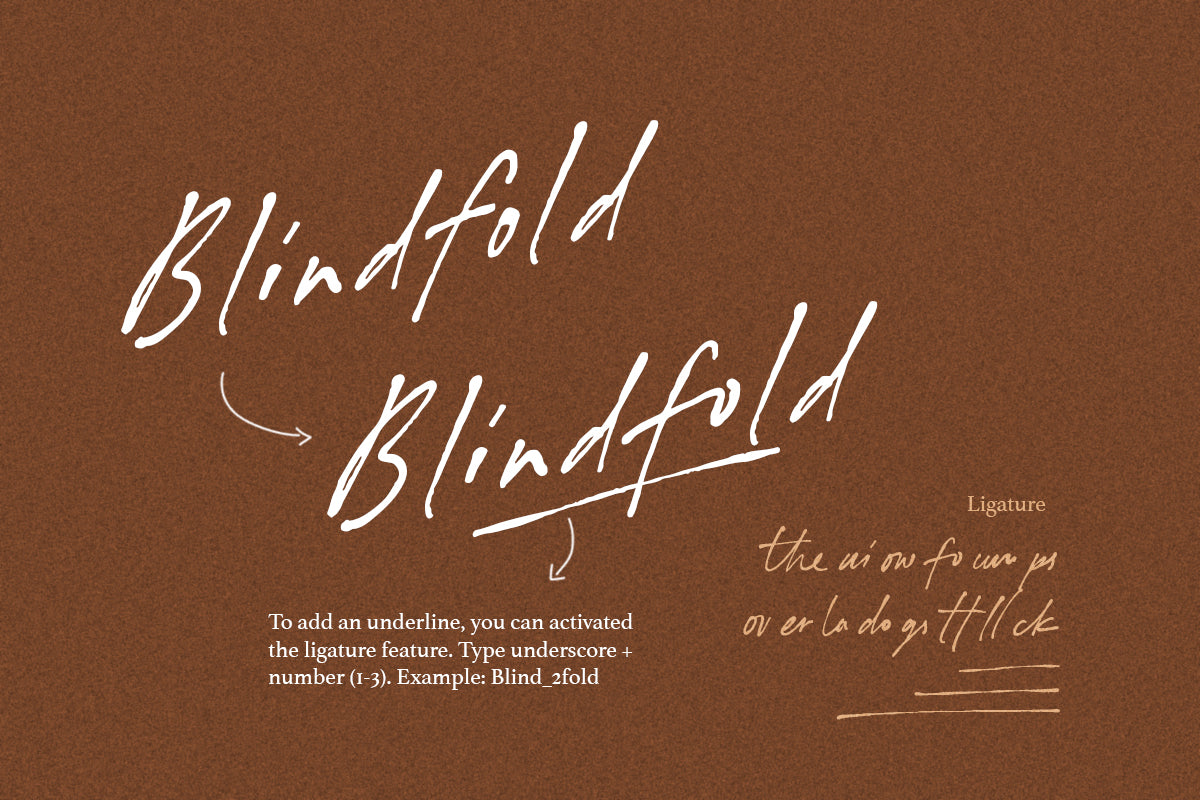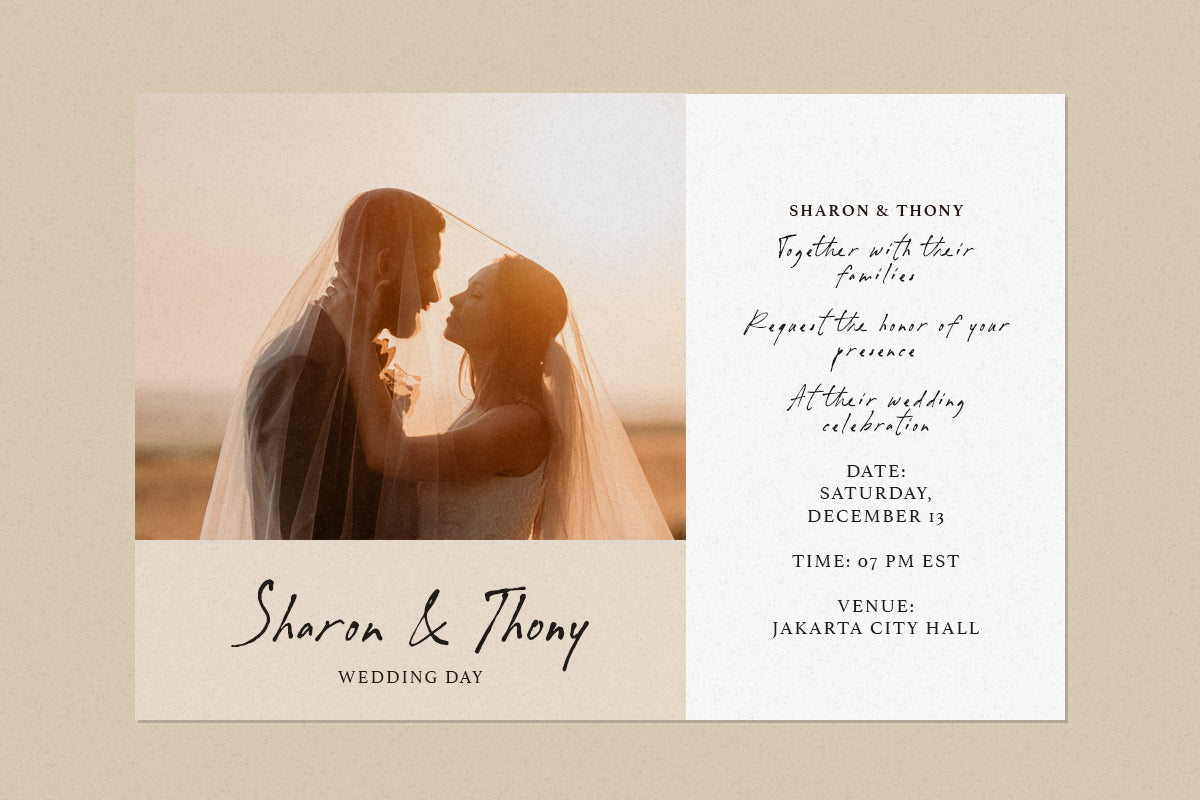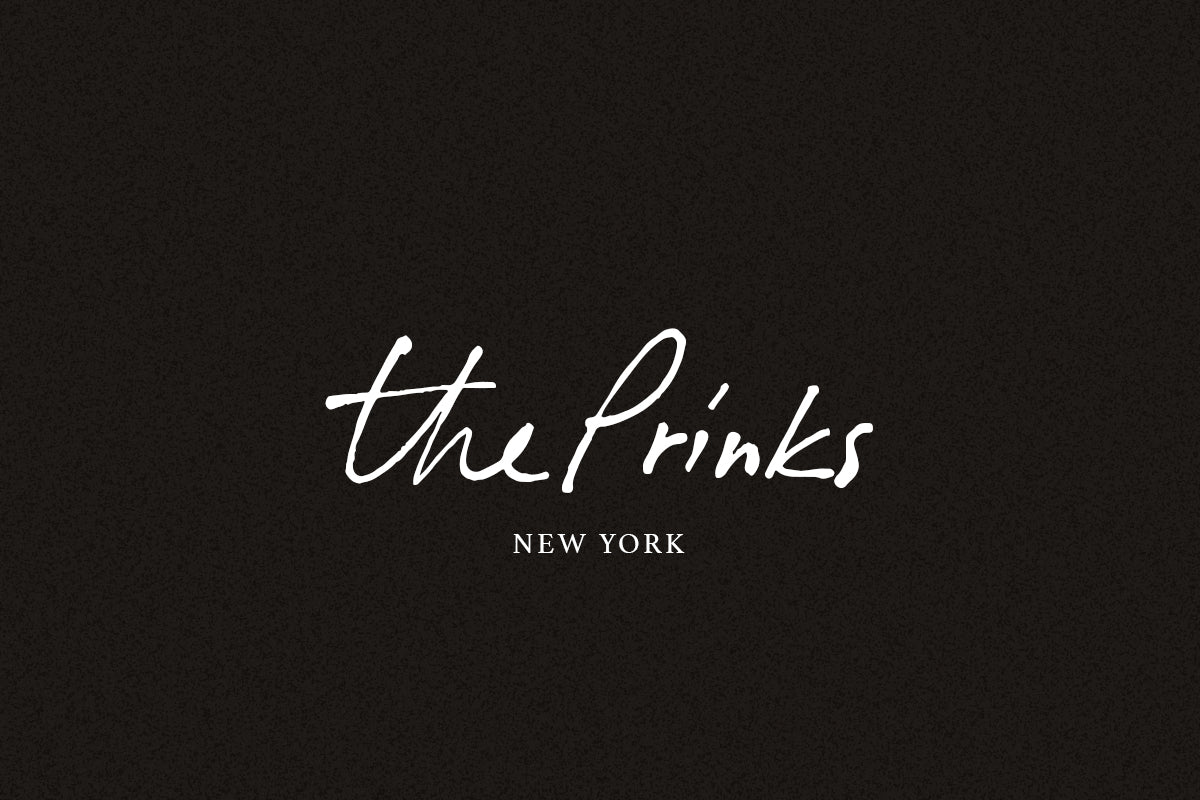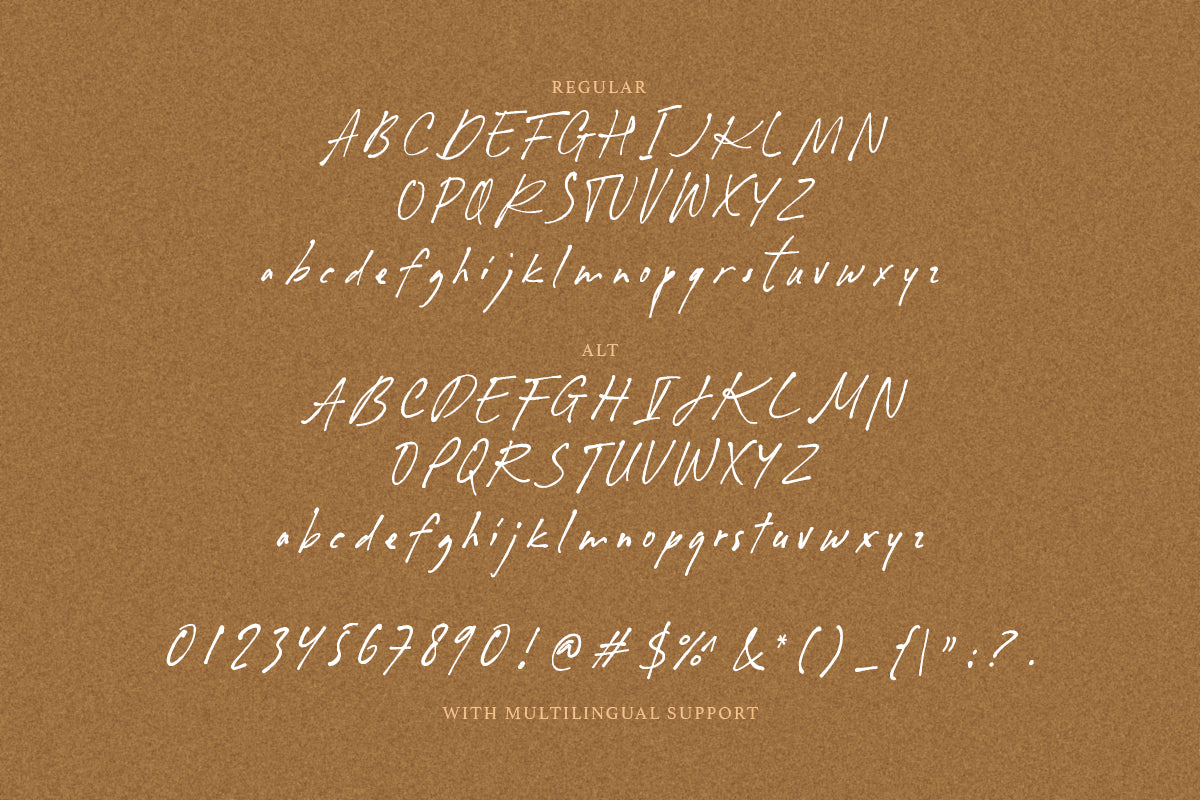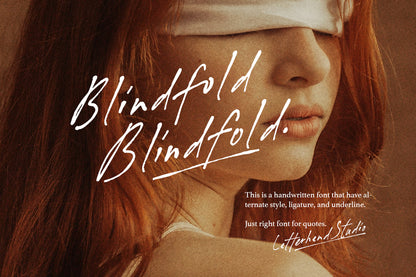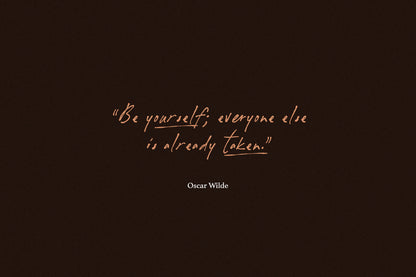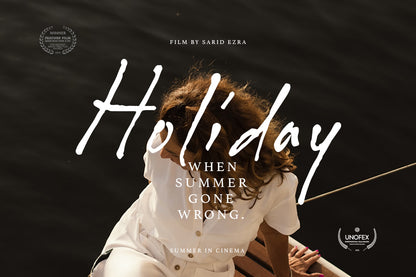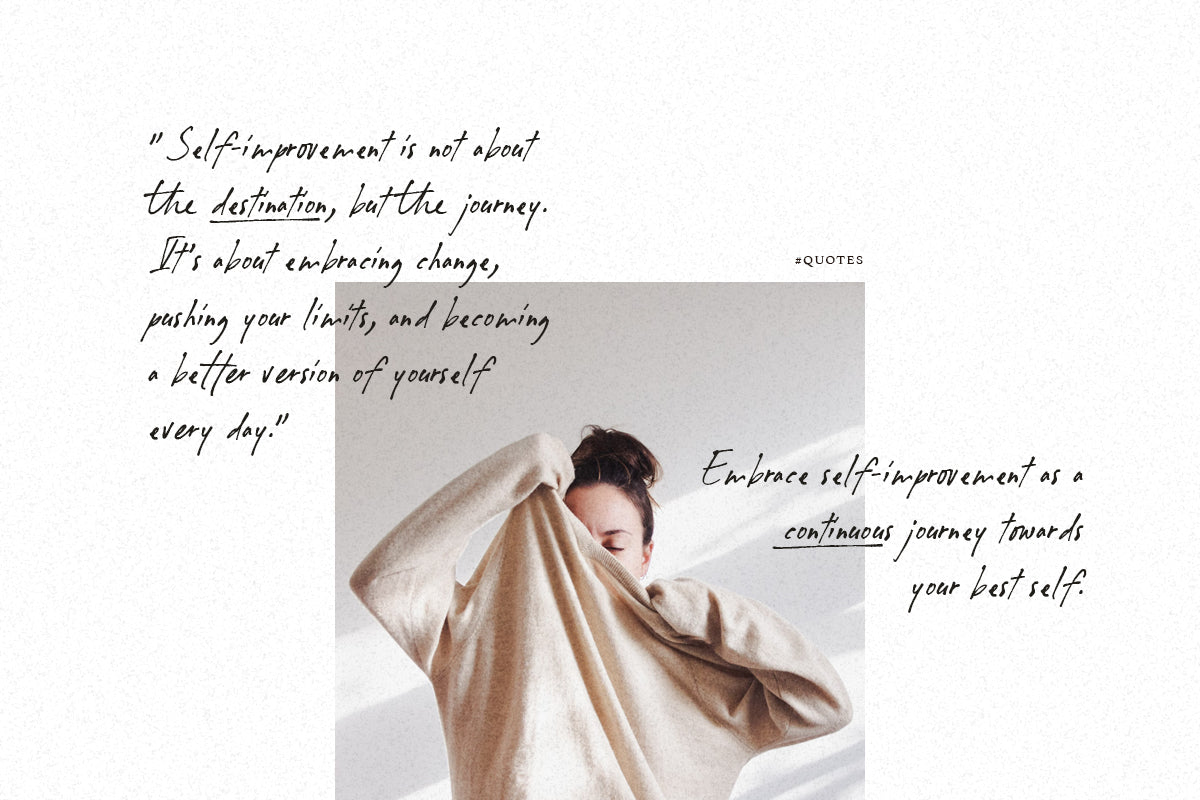
Blindfold is an organic signature script with a natural handwritten feel. This font includes alternates, ligatures, and underlines, making it perfect for quotes. It is ideally suited for use in logos, headlines, signage, and various formal applications such as invitations, labels, magazines, greeting or wedding cards, packaging, fashion, makeup, stationery, novels, and any advertising purpose.
Uppercase & lowercase
Numbers and punctuation
Alternates & Ligatures
Multilingual Support